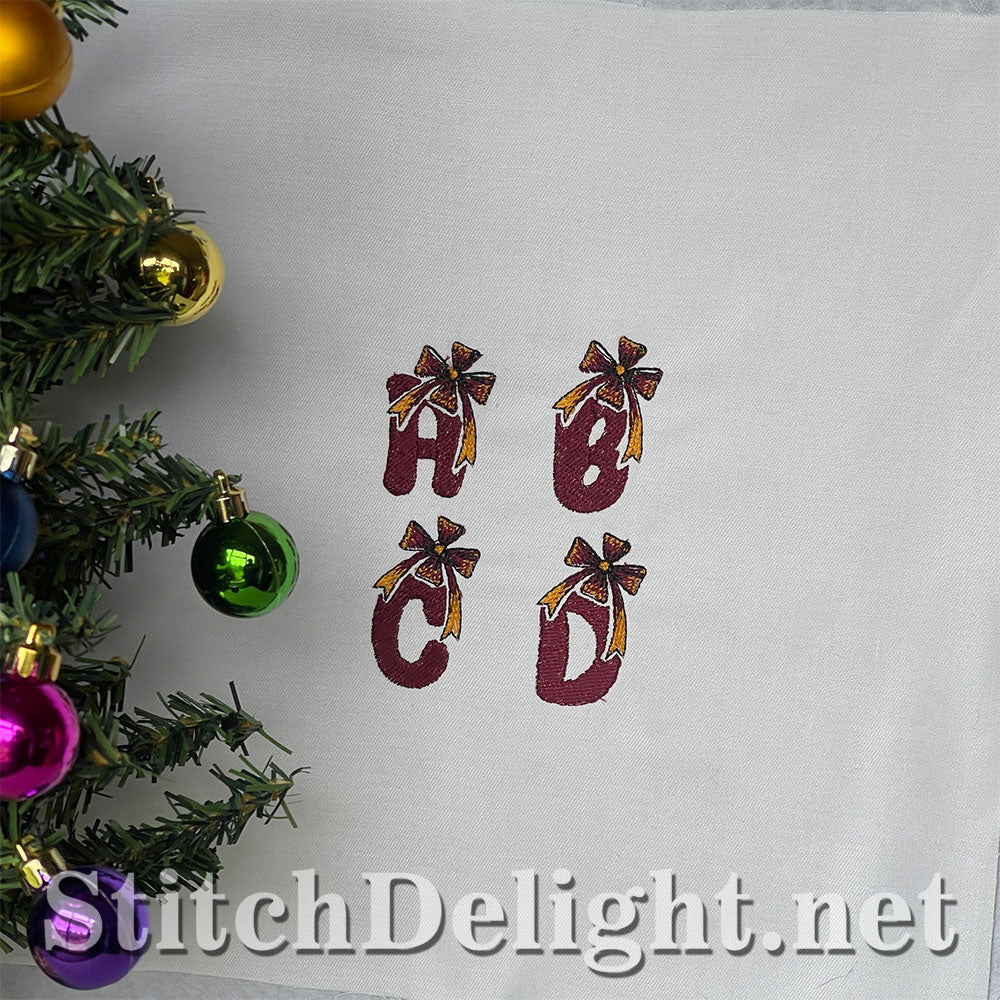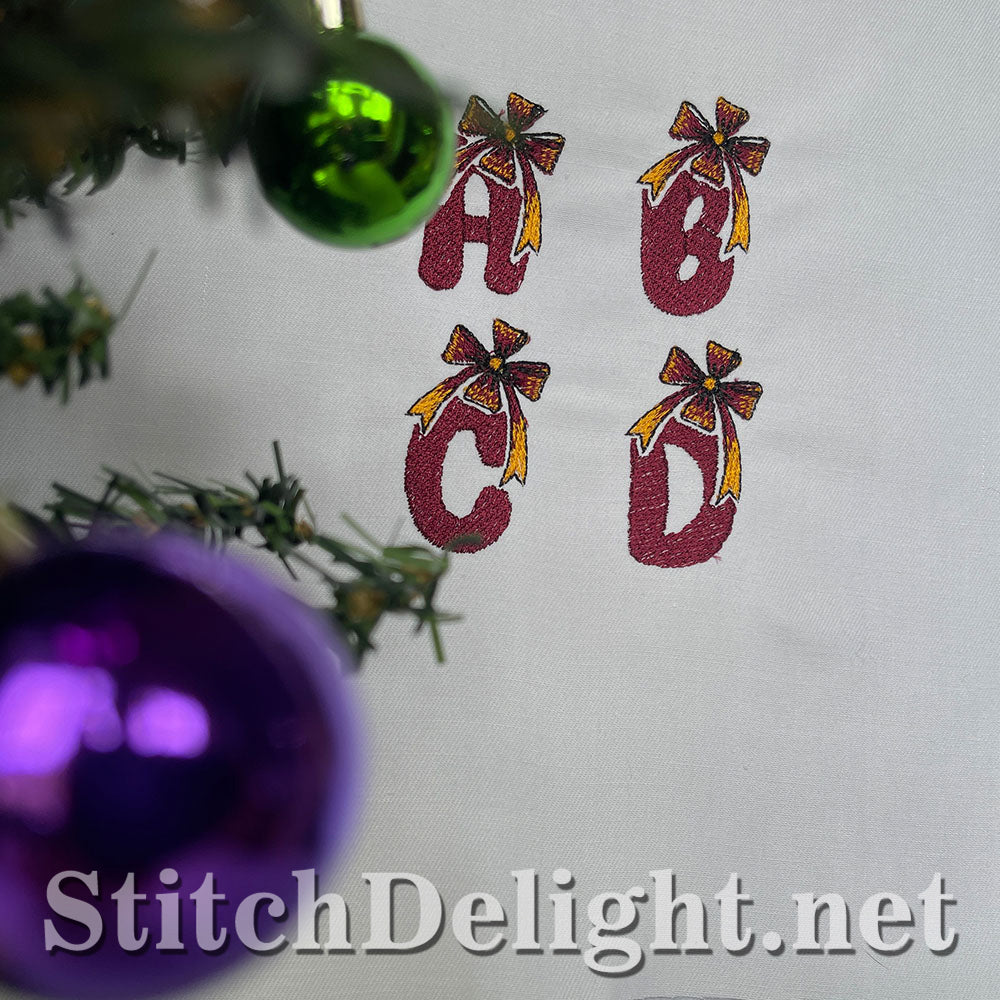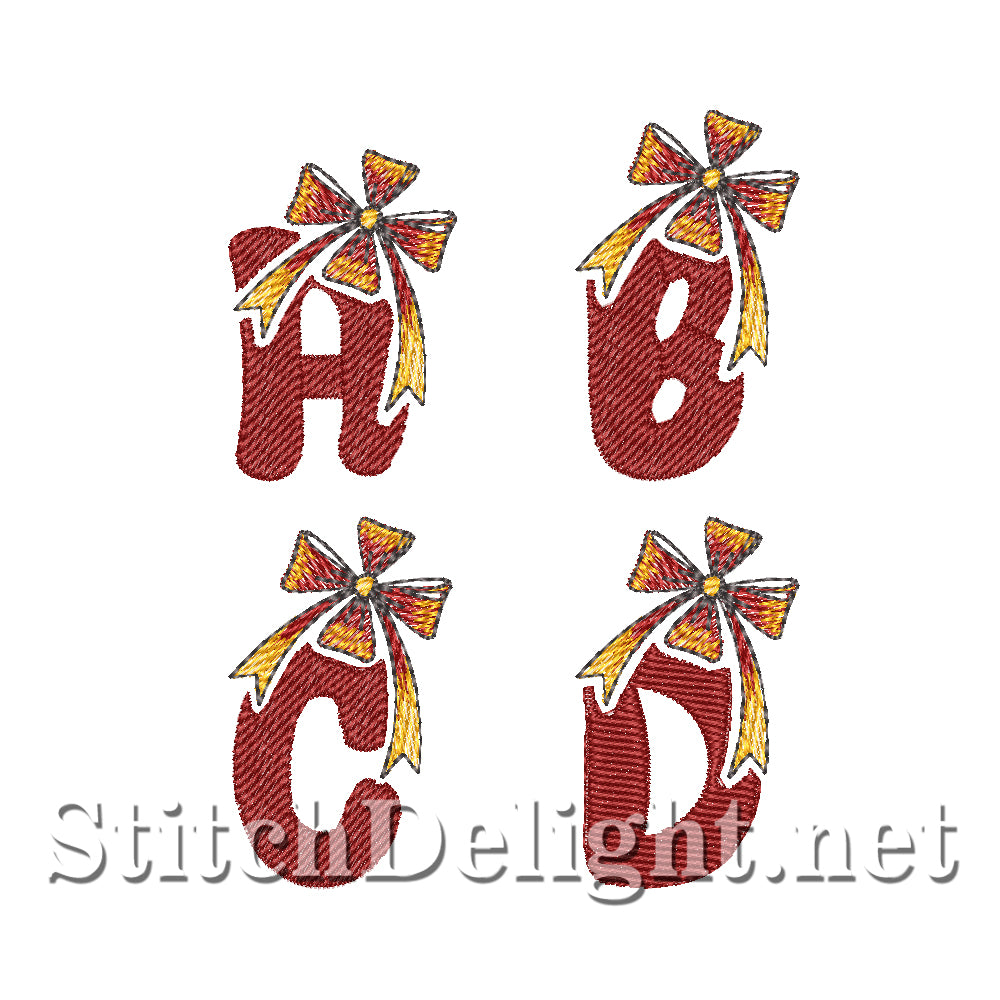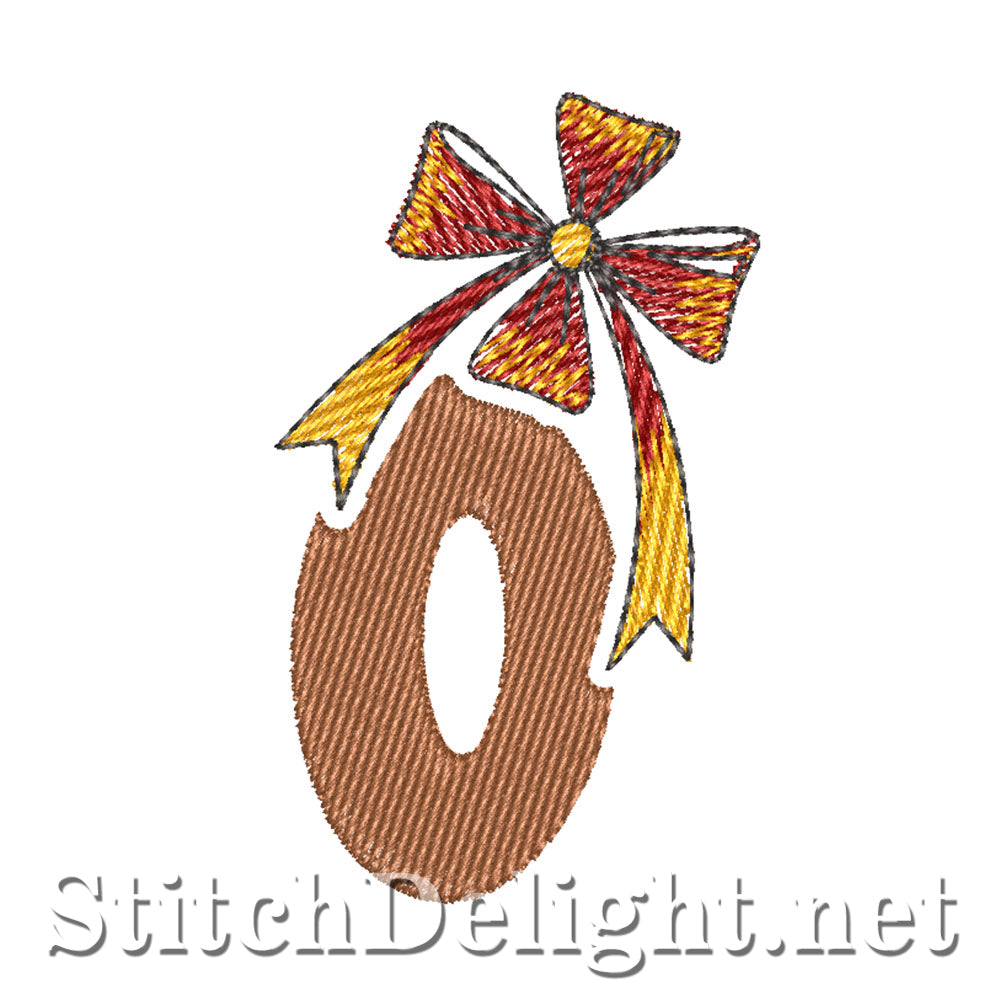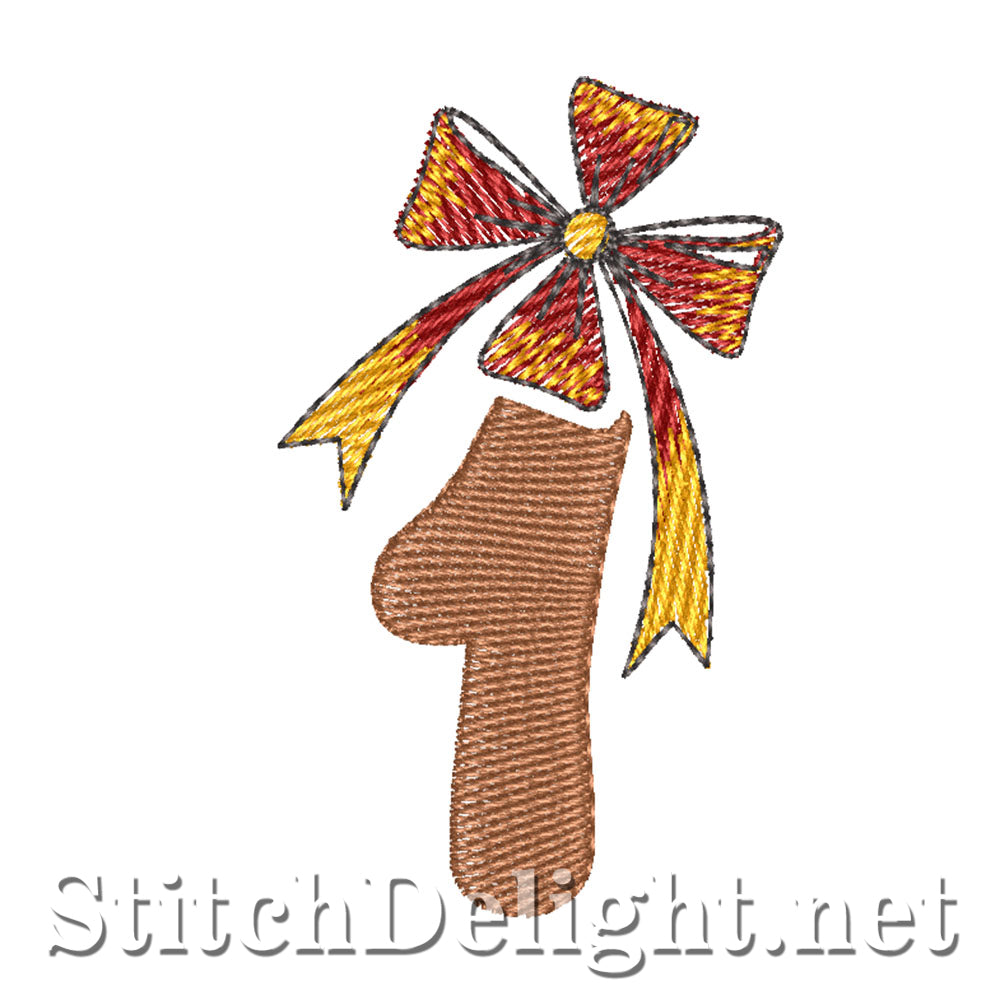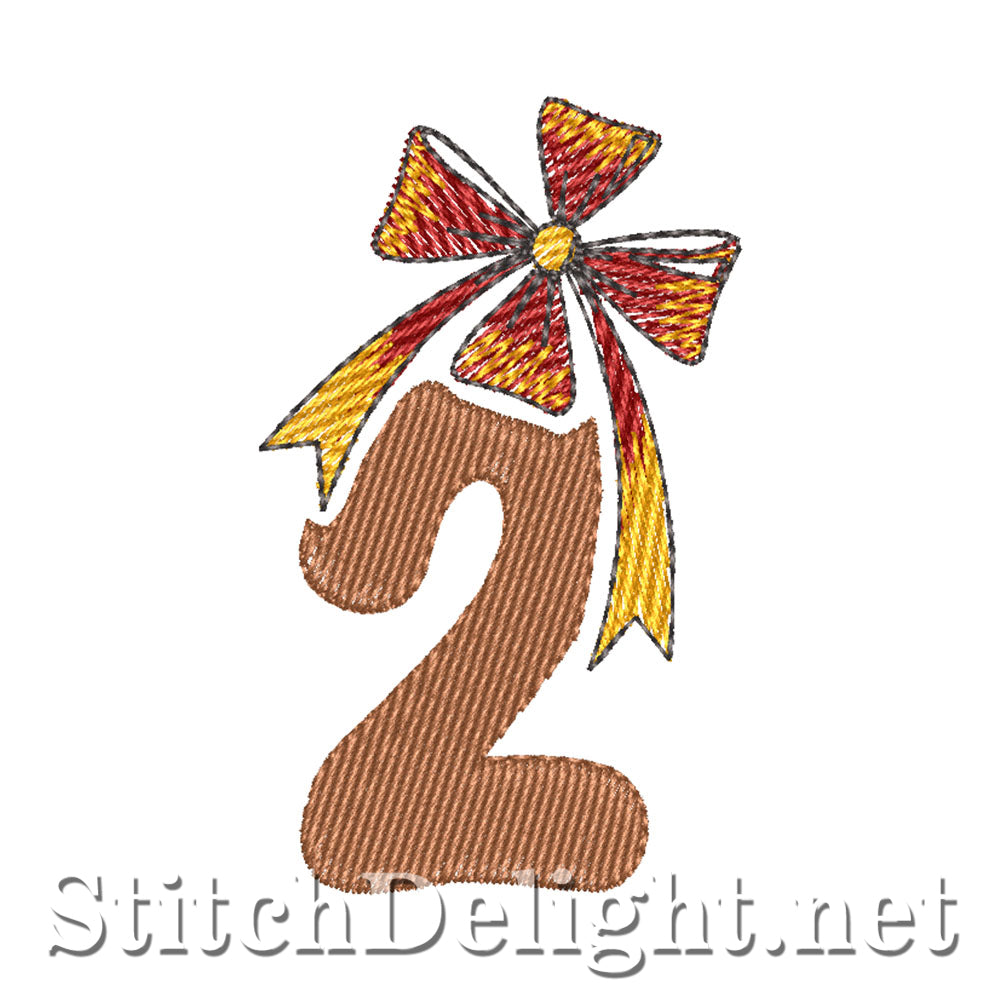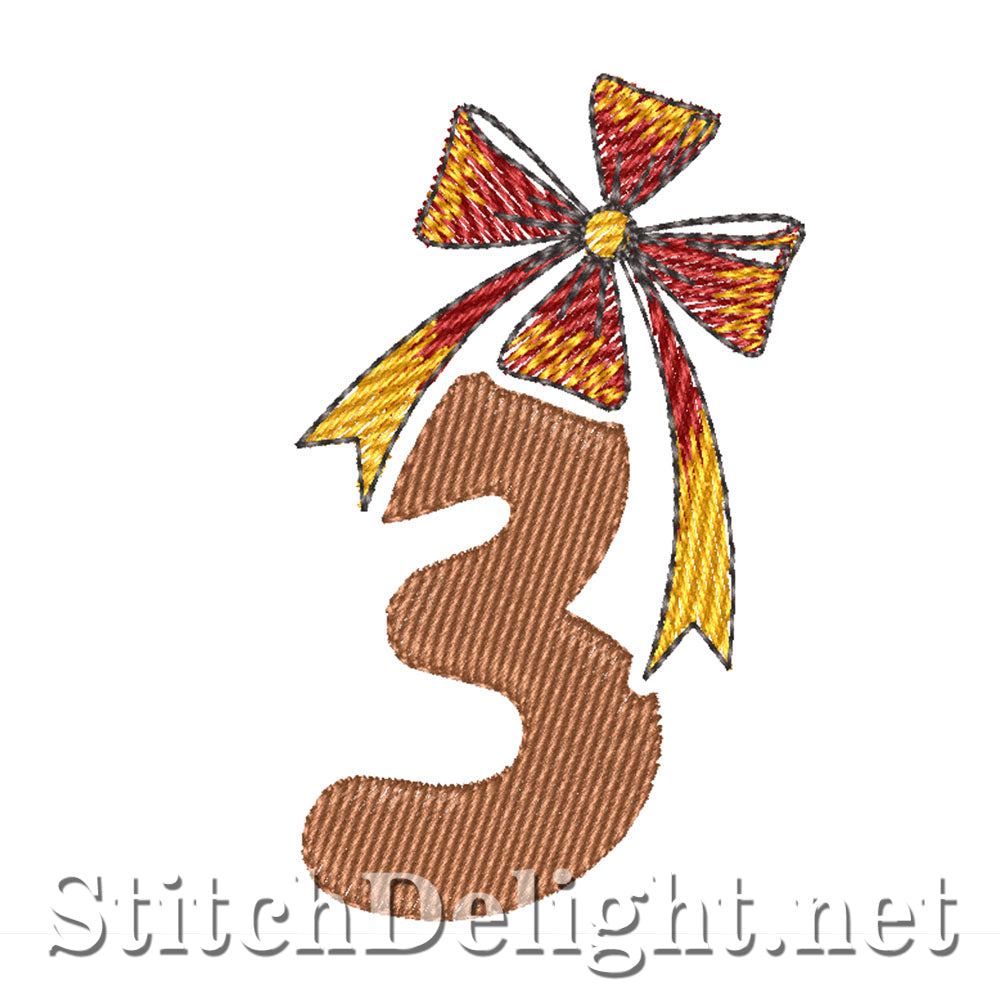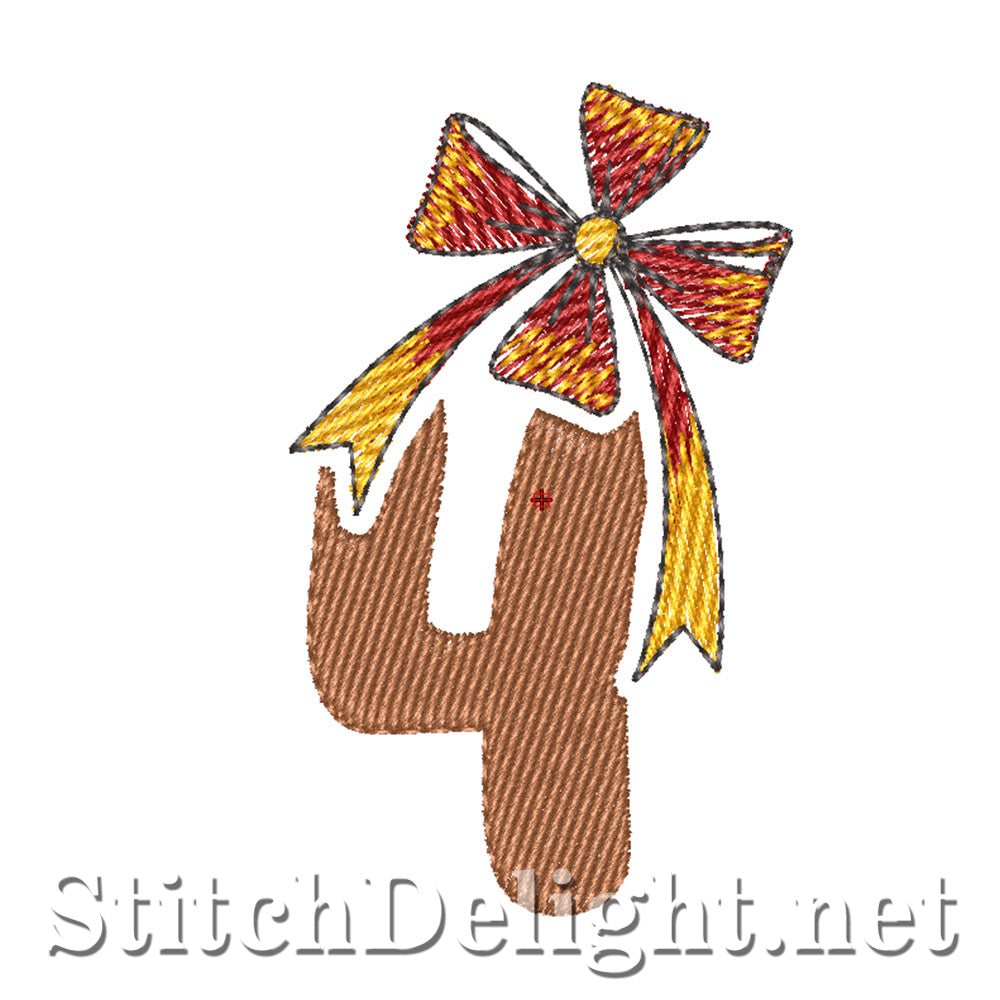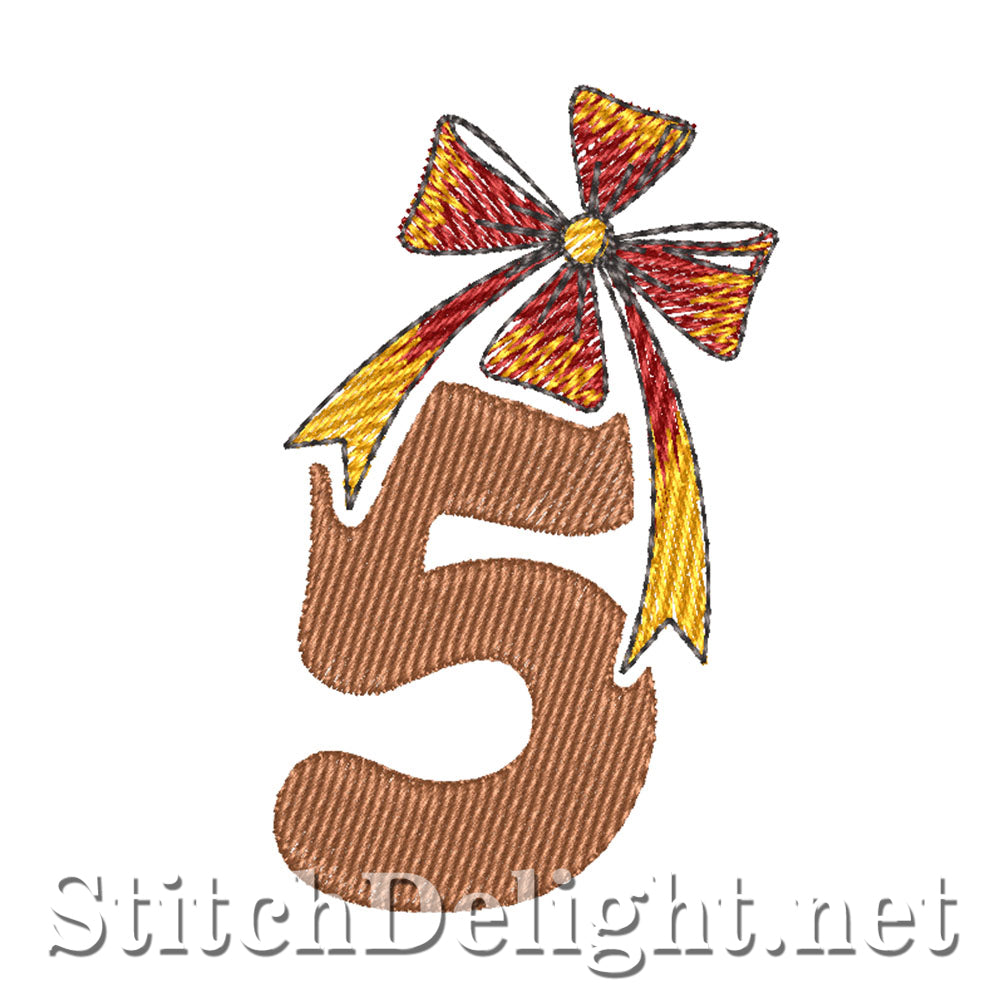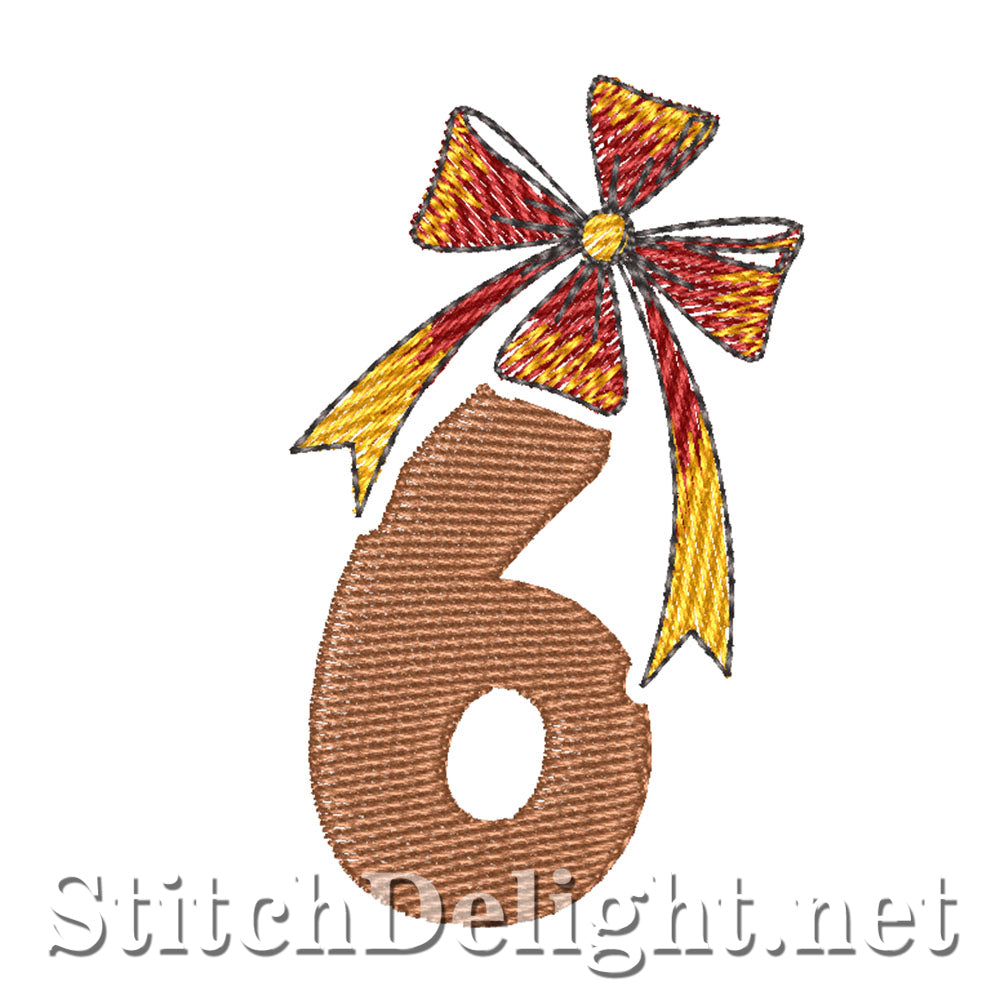
SDS3256 Gift Font
Introducing Gift Font. a delightful and festive font designed for celebrations and gift-giving occasions. With rounded edges that evoke a sense of warmth and friendliness, each letter is adorned with a decorative ribbon, reminiscent of a beautifully wrapped present. Perfectly suited for birthdays, Christmas, or any joyous festivity,
Gift Font adds a touch of whimsy and celebration to your messages. The font comes with a BX format for easy use and customization, and its average letter height of 2 inches ensures a visually pleasing and impactful display.